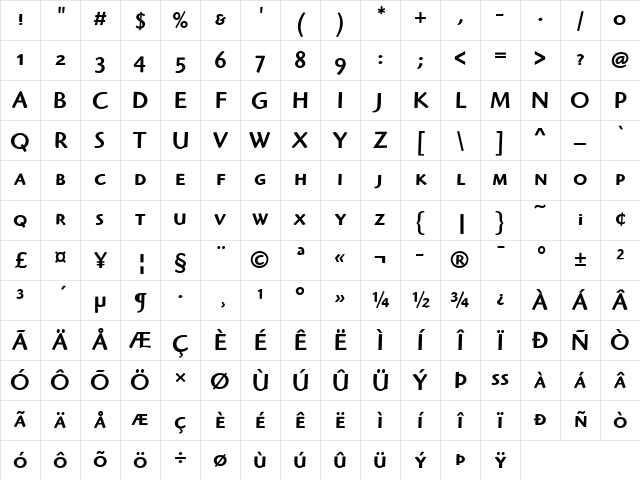
Highlander ITC Medium
Foundry: by URW
Complete Highlander ITC Medium glyph index. Displaying only characters natively supported by Highlander ITC Medium font.
Design Context for Highlander ITC
Highlander ITC is a composed and adaptable typeface that performs quietly and consistently across a wide range of design contexts.